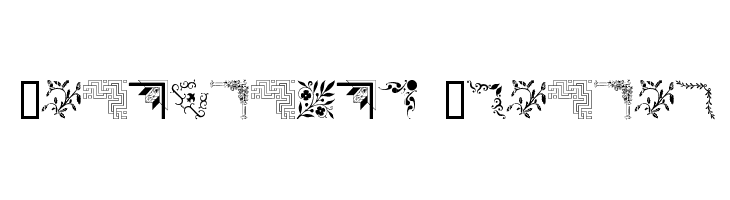
( Fonts by Astigmatic One Eye Typographic Institute - Brian J. Bonislawsky - astigmatic.com )
A festive, decorative font with characters inside Christmas ornaments, ideal for holiday themes.
A festive, ornamental font with uppercase letters in decorative baubles.
( Fonts by www.houseoflime.com )
Elaborate ornamental corner designs with a vintage decorative flair.
( Fonts by www.houseoflime.com )
Highly decorative ornamental motifs for embellishment.
( Fonts by www.houseoflime.com )
Highly ornamental and decorative motif font.
( Fonts by www.houseoflime.com )
Intricate ornamental dingbats with floral and classical motifs.
( Fonts by www.houseoflime.com )
A decorative font with ornate and celestial-themed glyphs.
( Fonts by www.houseoflime.com )
A decorative dingbat font with ornate frame and border designs.
( Fonts by www.houseoflime.com )
An ornamental and decorative font with intricate designs for each uppercase letter.